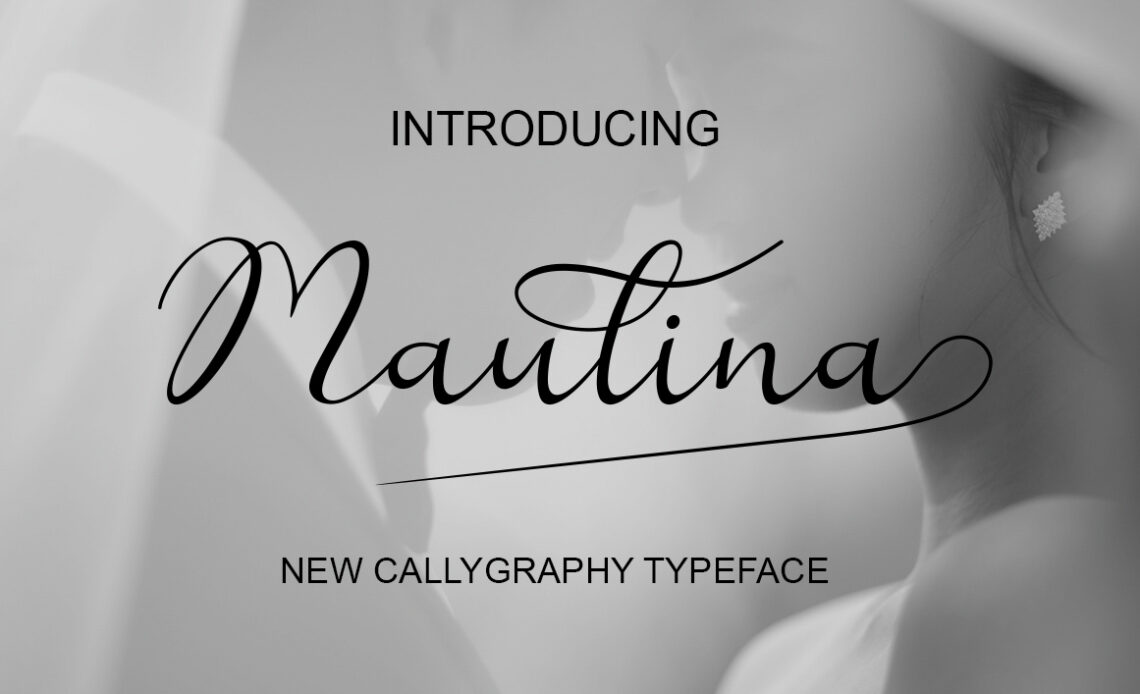
Prepare yourself to be captivated by the ethereal beauty of Reula Maulina, an exquisite script font brimming with elegance and charm. A creation of the acclaimed Arwah Studio, Reula Maulina is a visual masterpiece that will elevate your designs to new heights.
Step into a world of sophistication and grace with Reula Maulina. Its sweeping curves and delicate strokes evoke a sense of timeless beauty, reminiscent of classic calligraphy. Each letter is a work of art, meticulously crafted to create a harmonious and visually stunning composition.
With Reula Maulina at your disposal, your creative potential knows no bounds. Whether you're designing wedding invitations, branding materials, or social media graphics, this font will effortlessly add a touch of luxury and refinement to your projects. Its versatility extends to various applications, allowing you to explore a myriad of design possibilities.
Dive into the depths of Reula Maulina's stylistic alternates and discover a treasure trove of creative options. Experiment with different glyphs and swashes to create unique and eye-catching designs that will leave a lasting impression. Unleash your imagination and let Reula Maulina guide you towards design brilliance.
As you adorn your designs with Reula Maulina, you'll feel a sense of artistry and inspiration coursing through your veins. This font possesses an innate ability to transform ordinary words into captivating works of art, imbuing them with a profound sense of emotion and purpose. Let Reula Maulina be your muse, guiding you towards creative excellence.